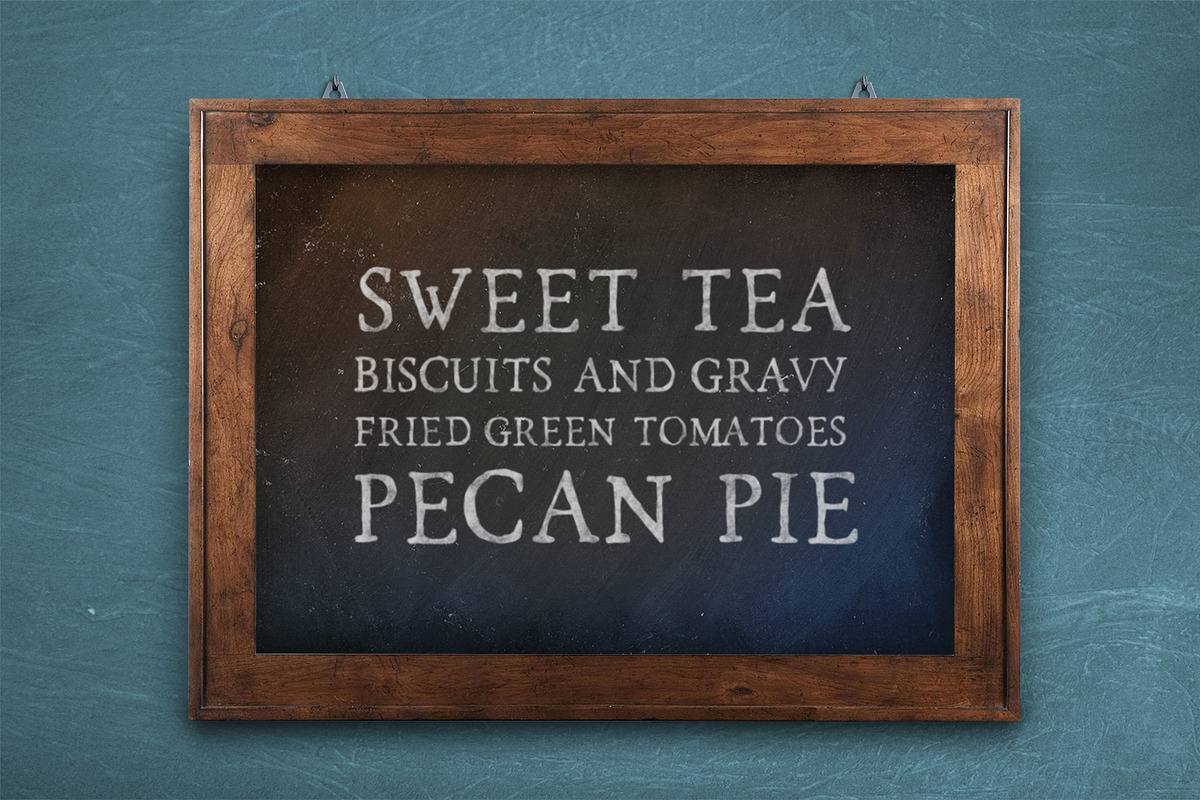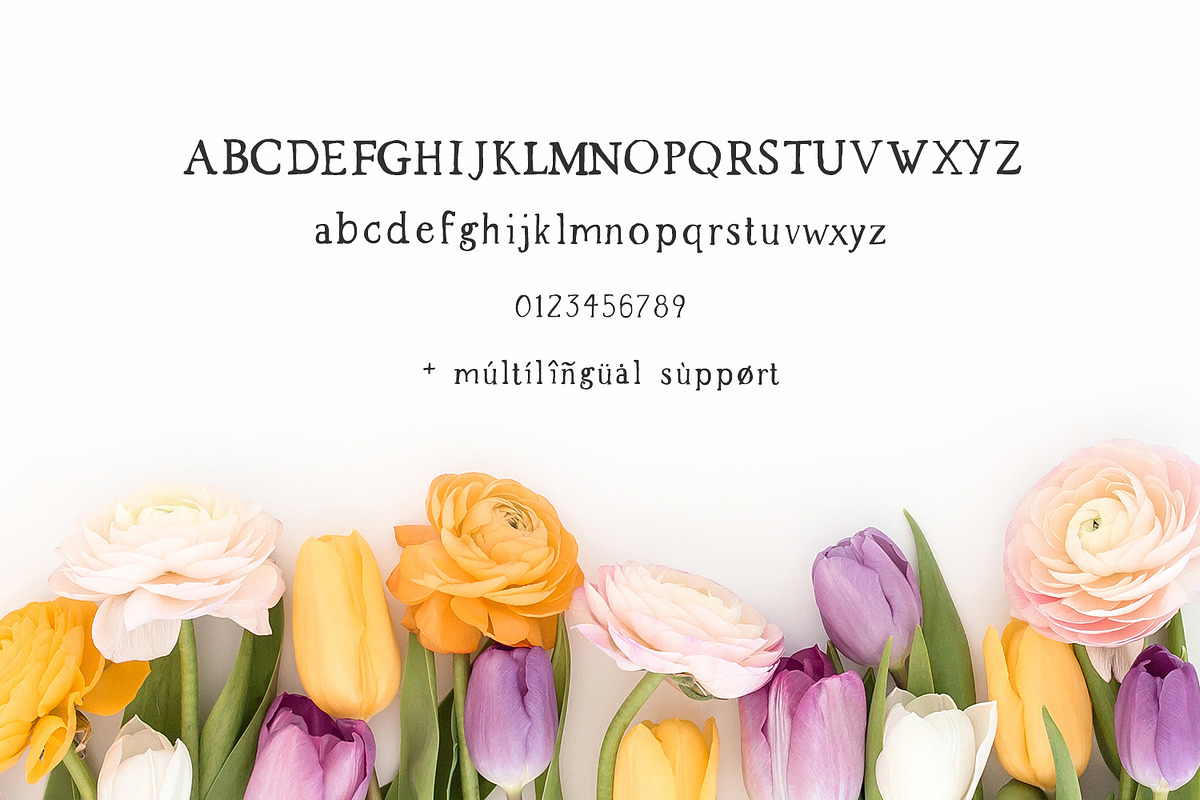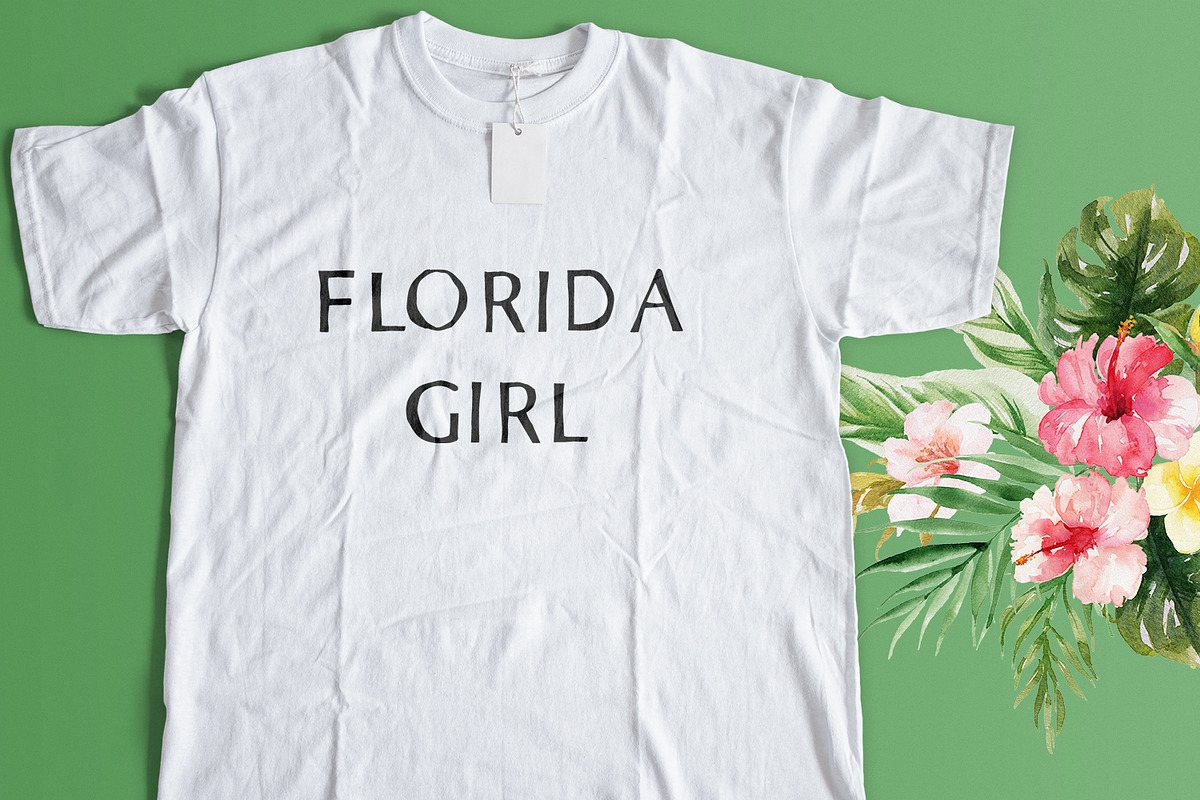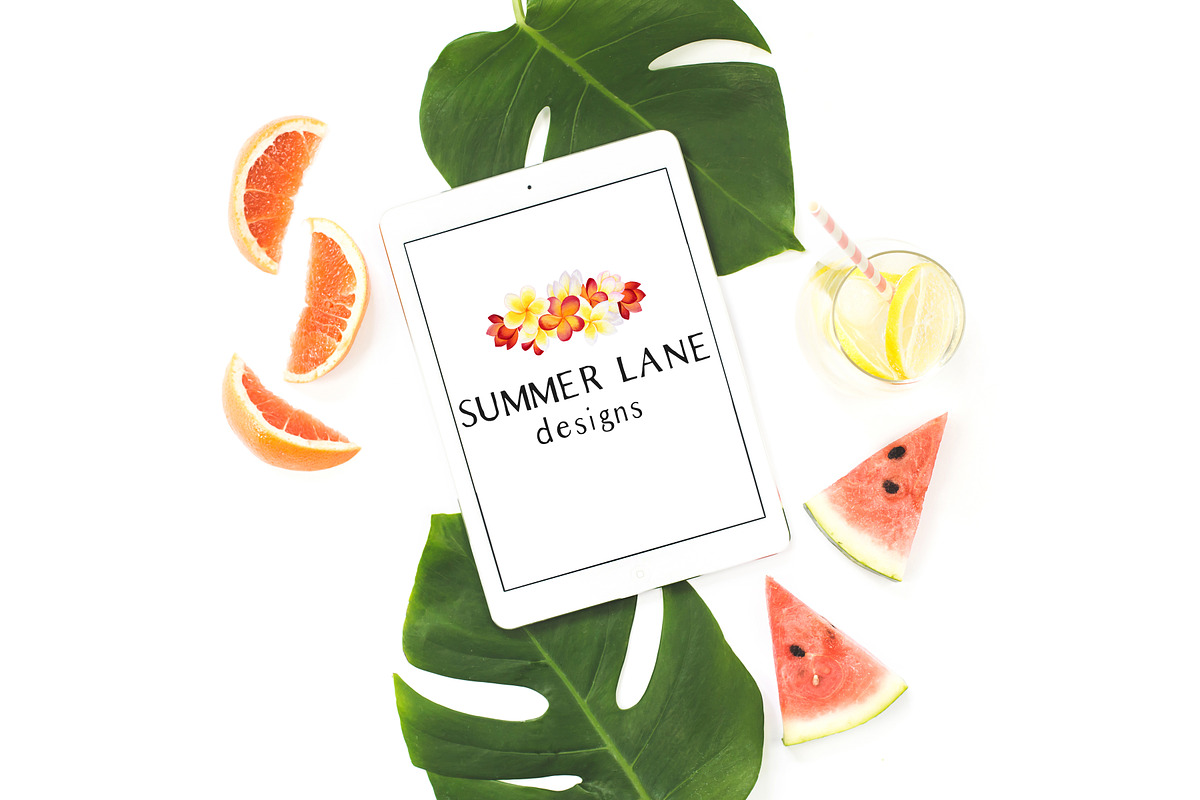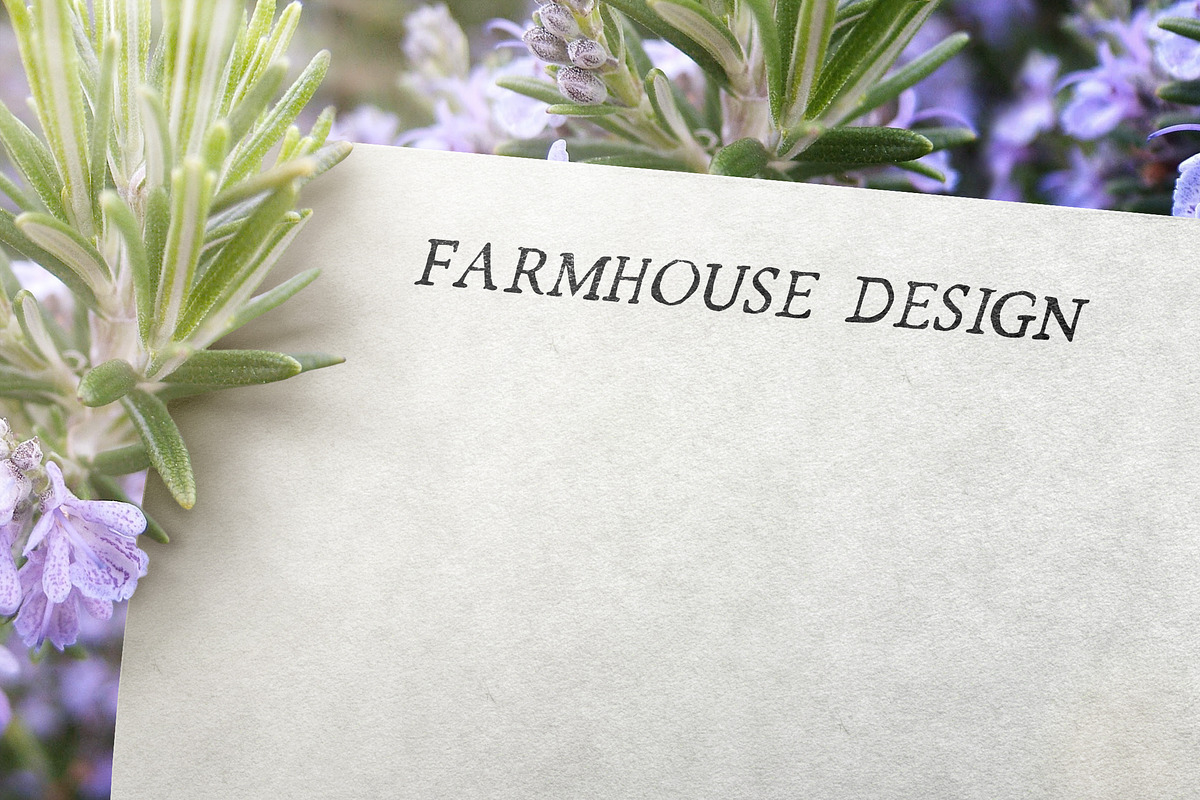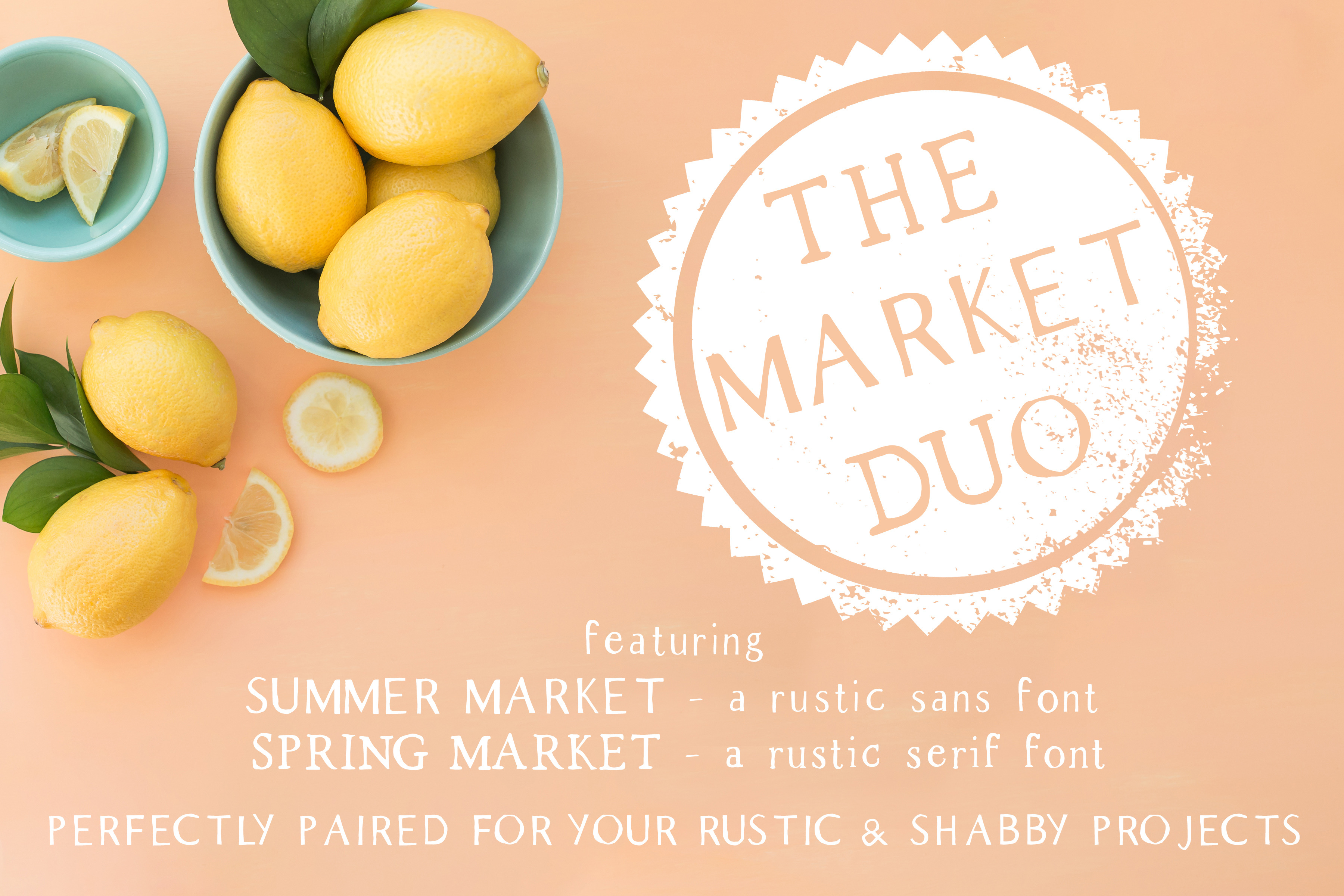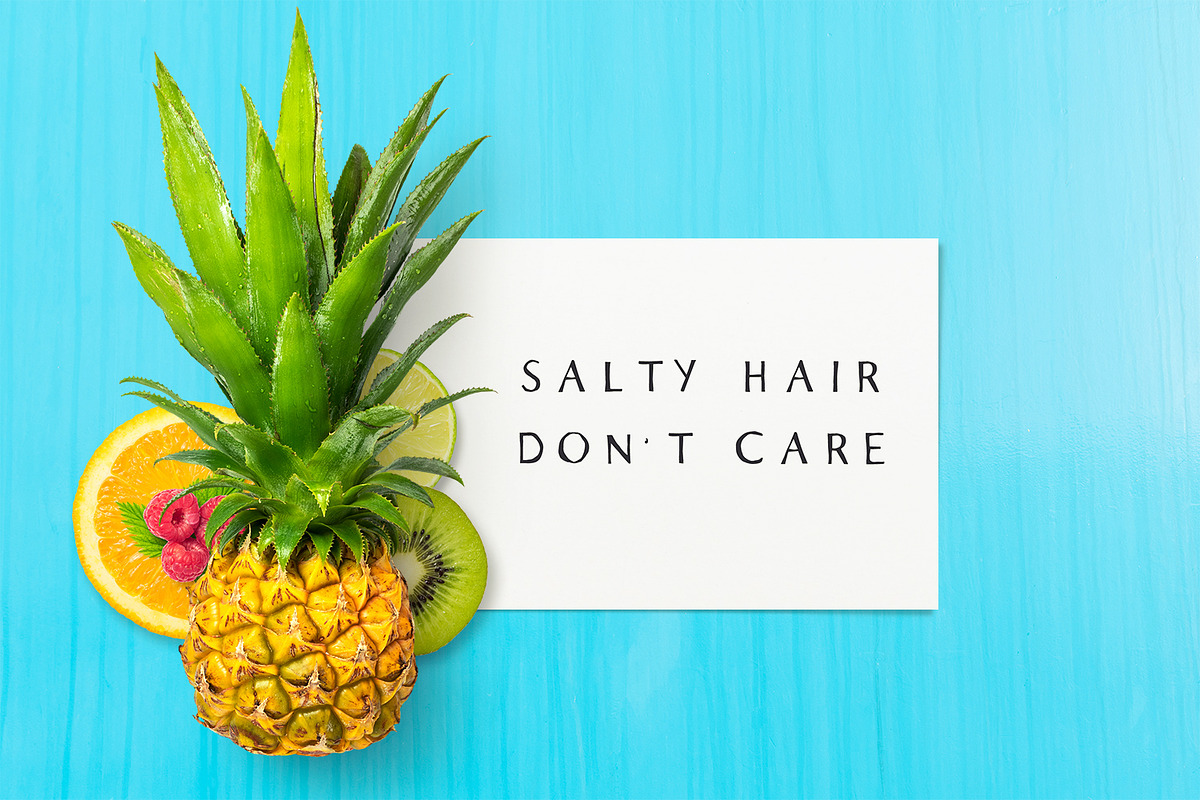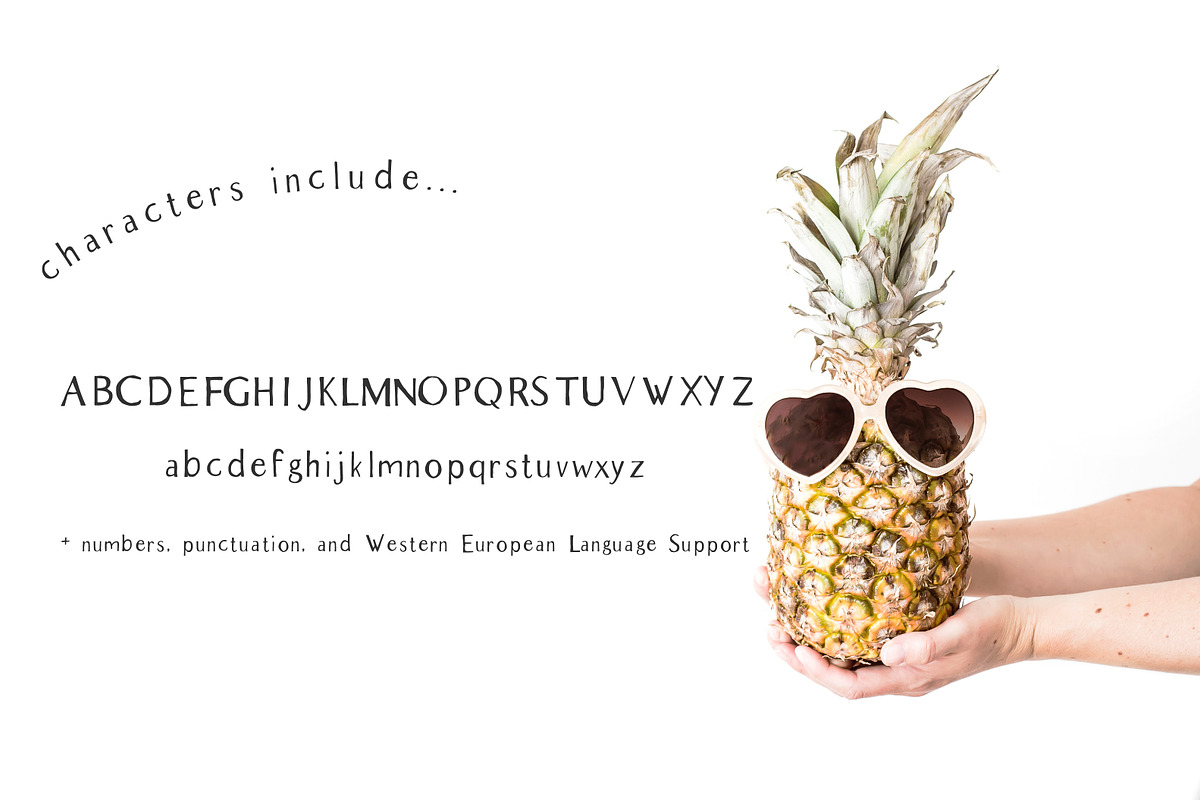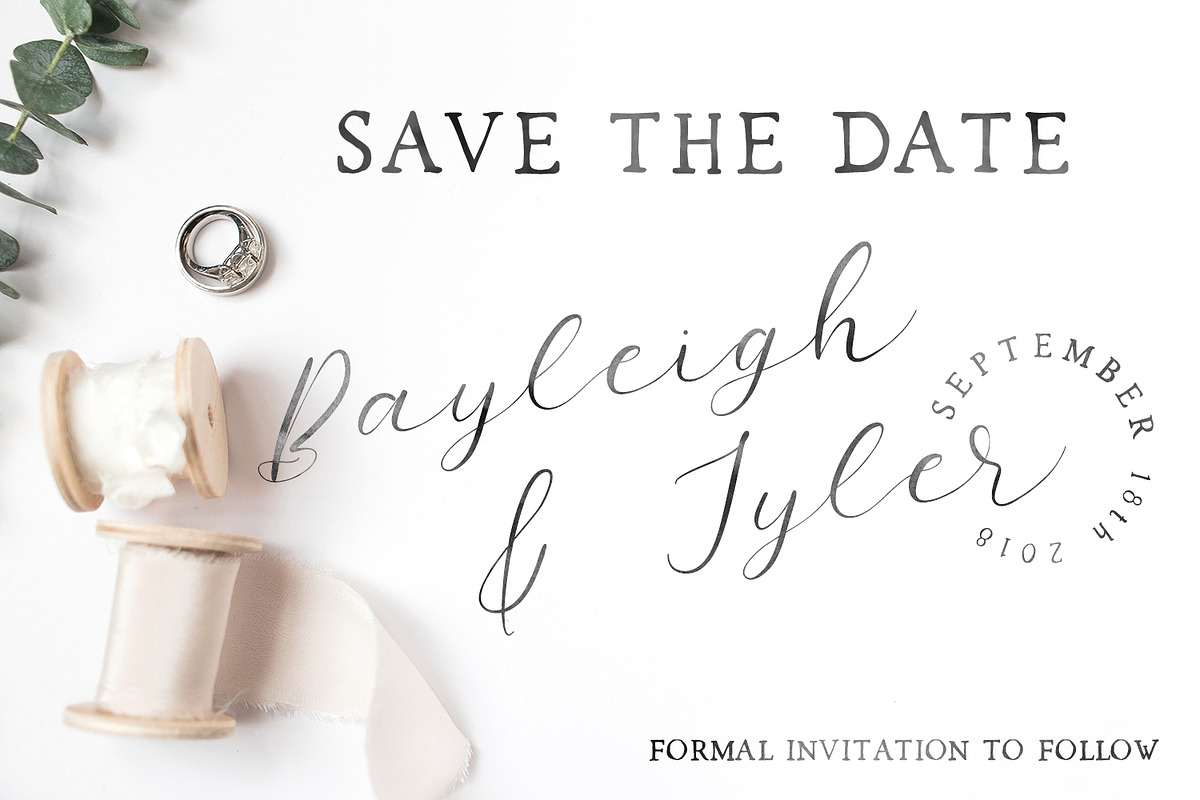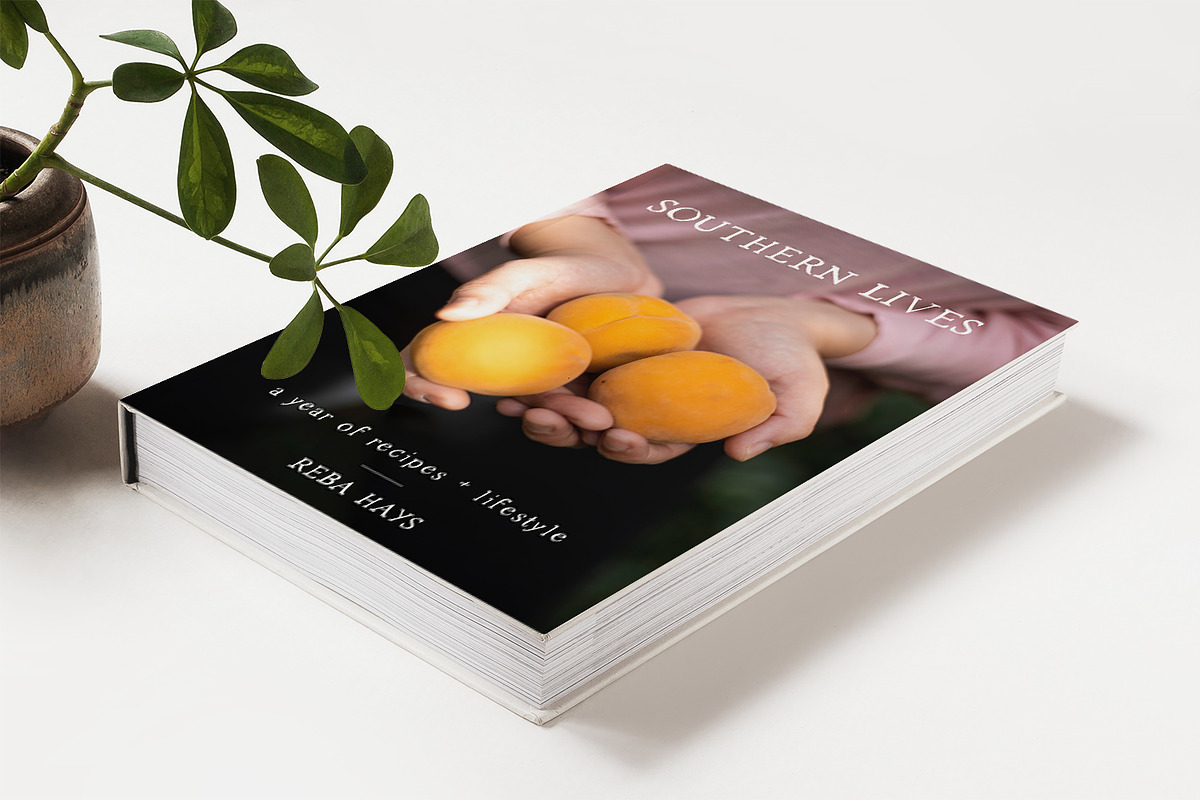
The Market Duo - Rustic Font
These perfectly paired sister fonts are perfect for your next rustic or shabby chic project. Added bonus? Buying in a bundle saves you bucks! Use for logo design & branding, invitations, signage, product packaging, & more!
Both fonts feature European language support.